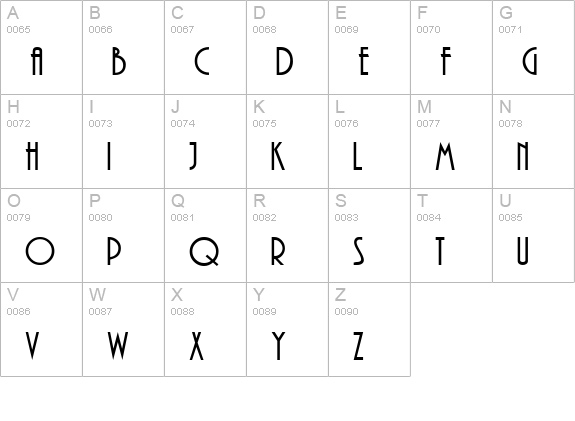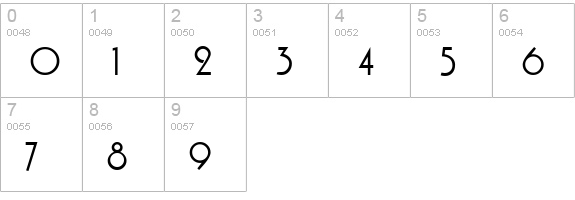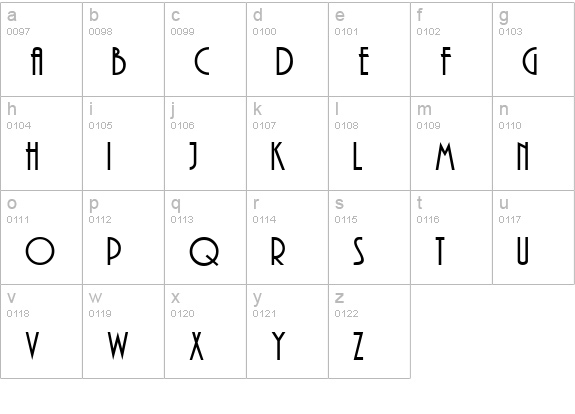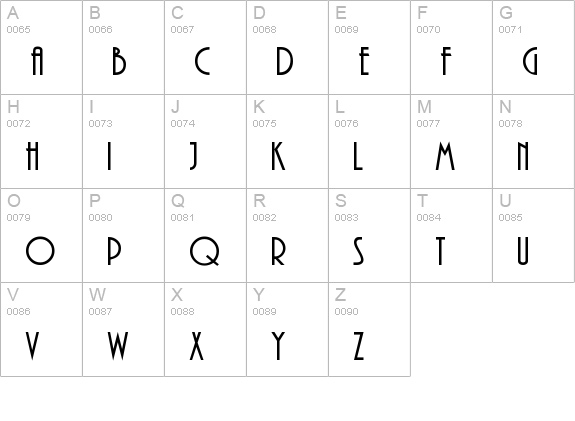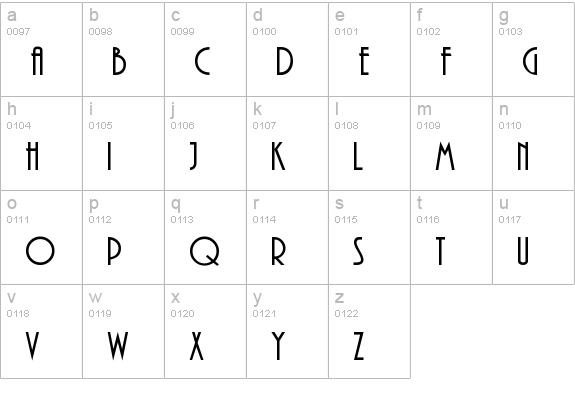
PlainDB Normal Font Details
PlainDB Normal is the standard, neutral variant in the PlainDB typeface family \xE2\x80\x94 well suited to general body text, paragraphs, and standard typographic work.
PlainDB Normal font is a versatile and timeless typeface that embodies simplicity and elegance. With its clean lines and balanced proportions, this font is perfect for a wide range of design projects, from branding and logos to website headers and printed materials. The Normal variant of PlainDB font is particularly appealing for its straightforward and uncomplicated design. It exudes a sense of clarity and readability, making it an excellent choice for both body text and headings. Whether you're designing a professional document or creating a modern website, PlainDB Normal font will ensure that your content is easily readable and visually appealing. One of the best things about PlainDB Normal font is that it is freely available to download at FontsMarket.com. This means that you can easily access this high-quality font without any cost. Whether you're a professional designer or a beginner, having access to a free font like PlainDB Normal can greatly enhance your design projects and bring your ideas to life. With its timeless design, versatility, and availability as a free download, PlainDB Normal font is the perfect choice for any design project. Whether you're working on a personal or commercial project, this font will add a touch of elegance and professionalism to your work. Don't miss out on the opportunity to enhance your designs with this exceptional font – download PlainDB Normal font for free at FontsMarket.com today.